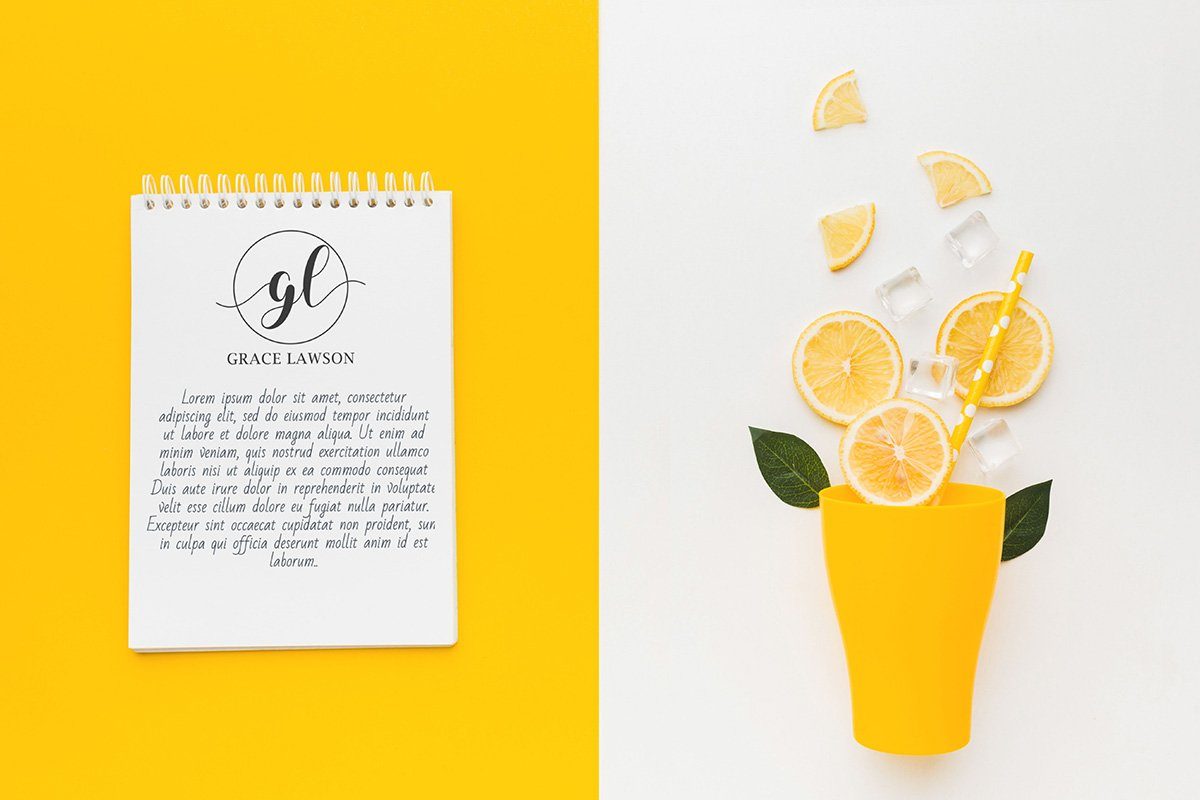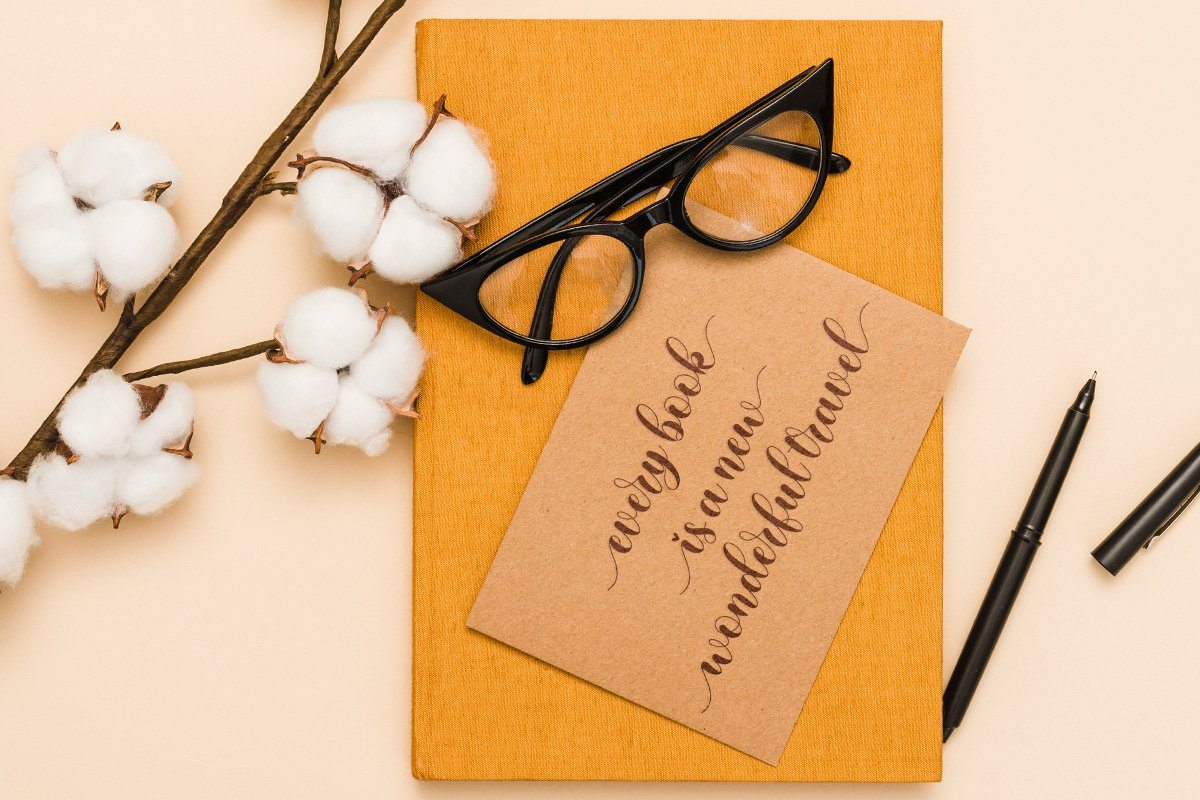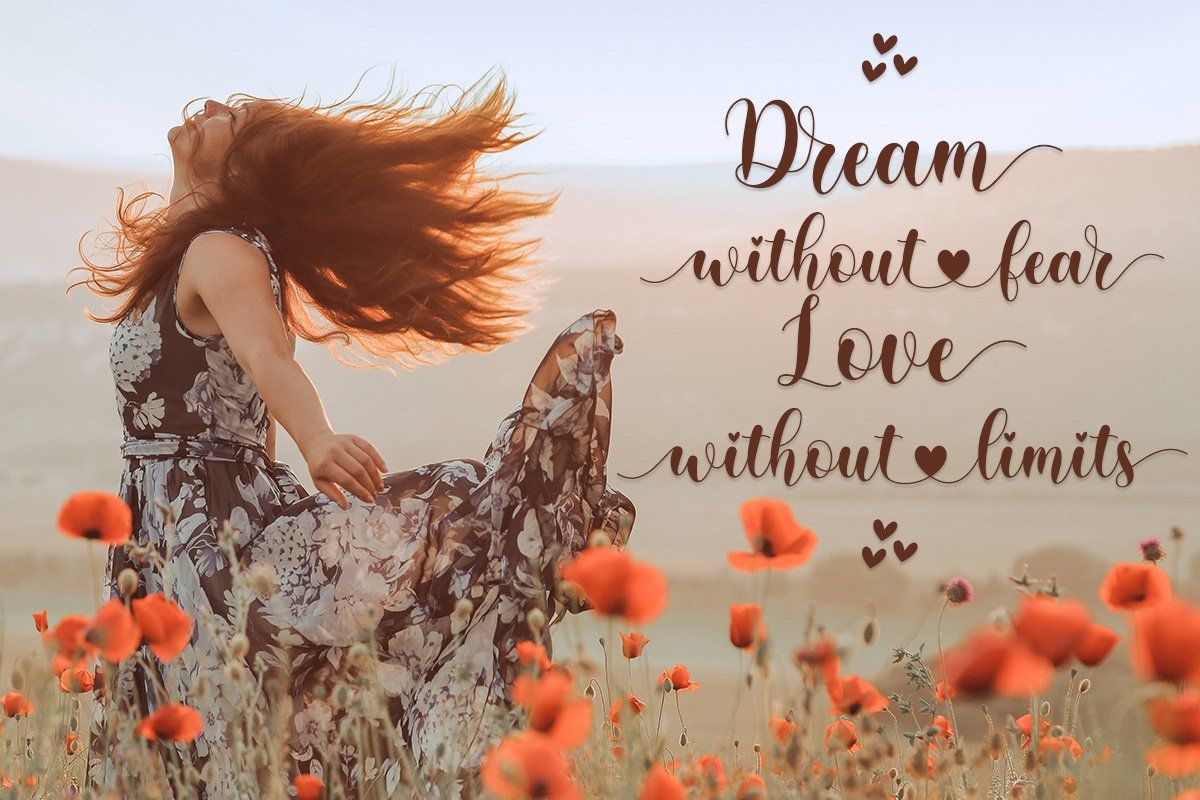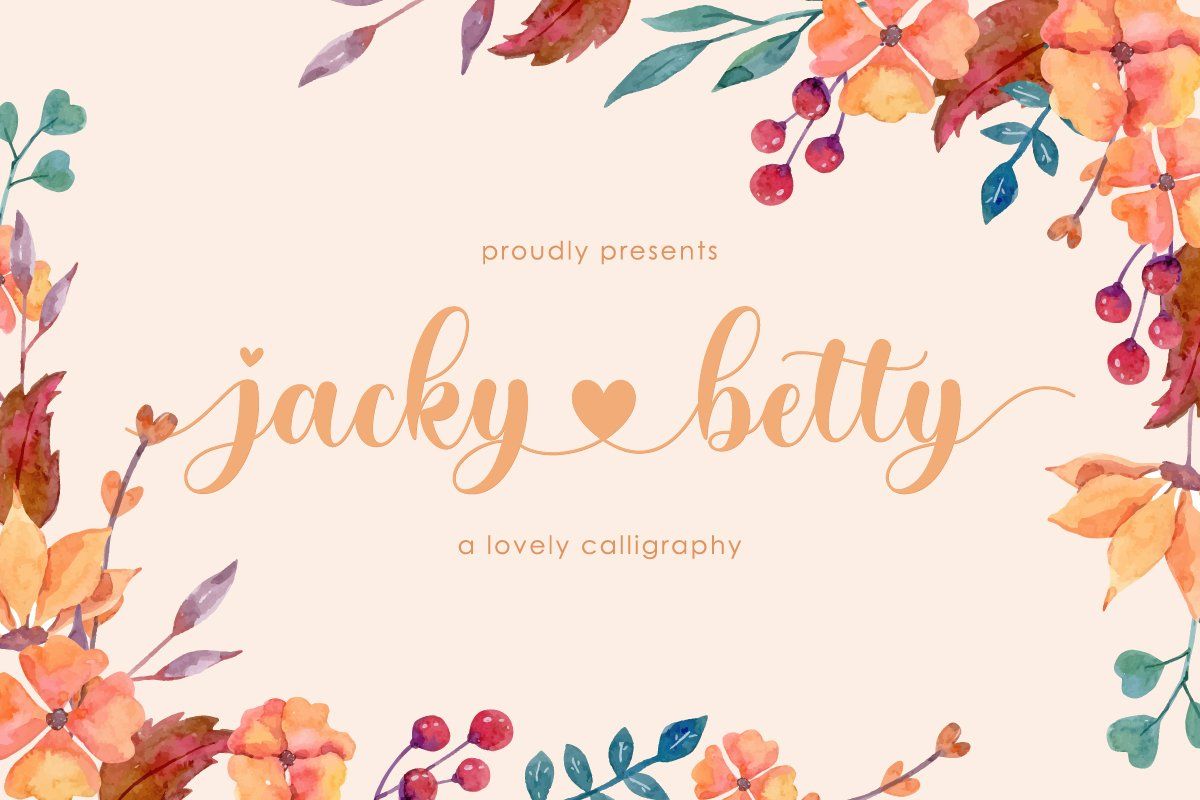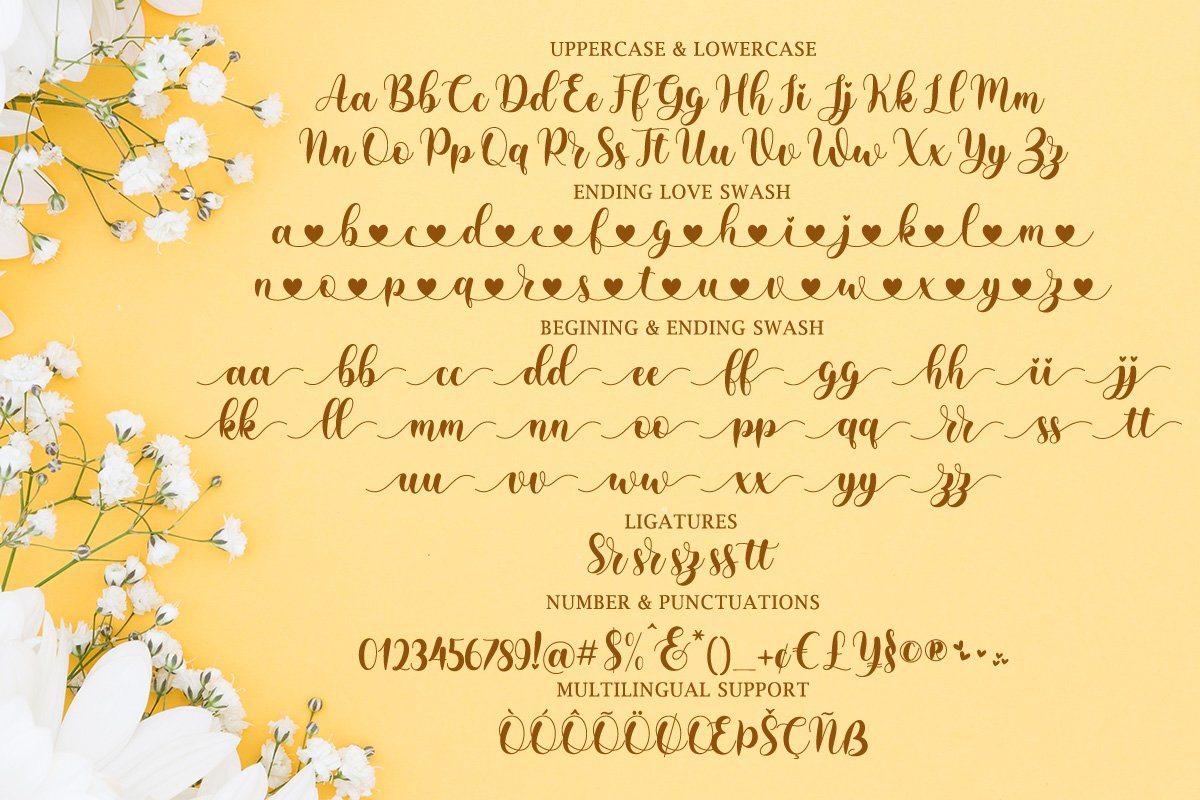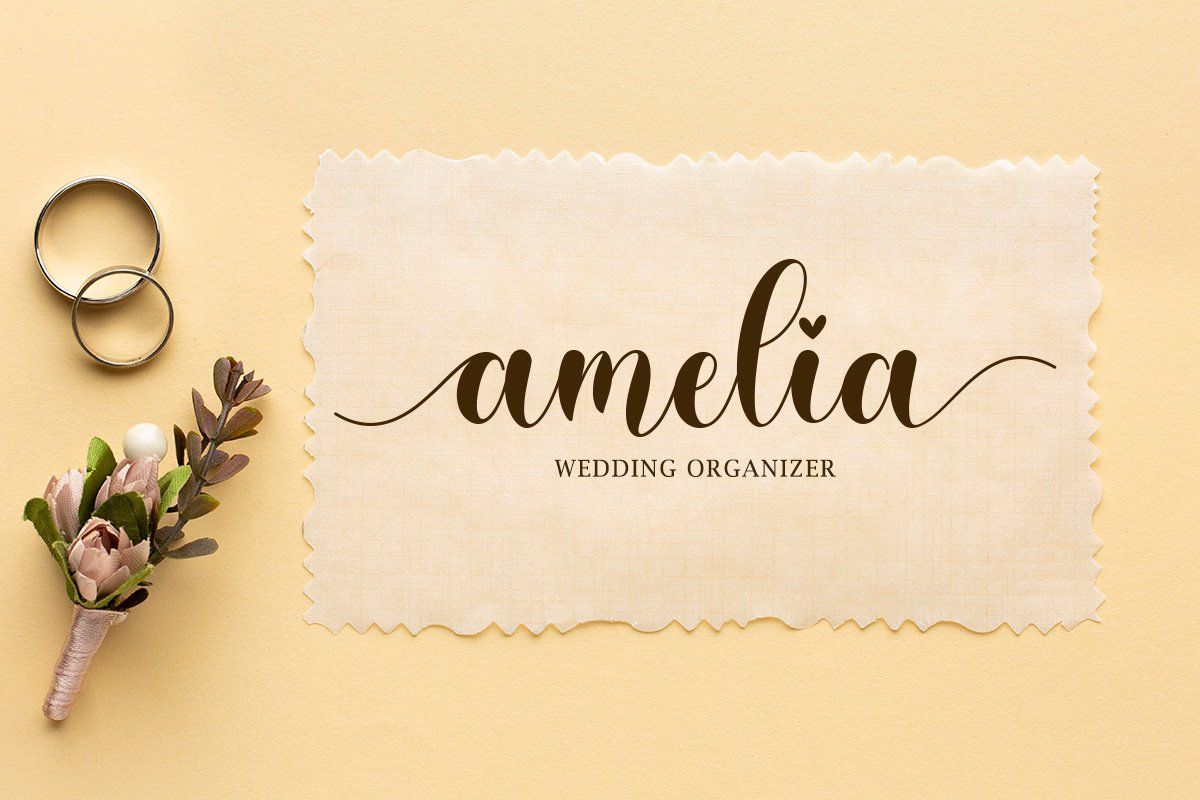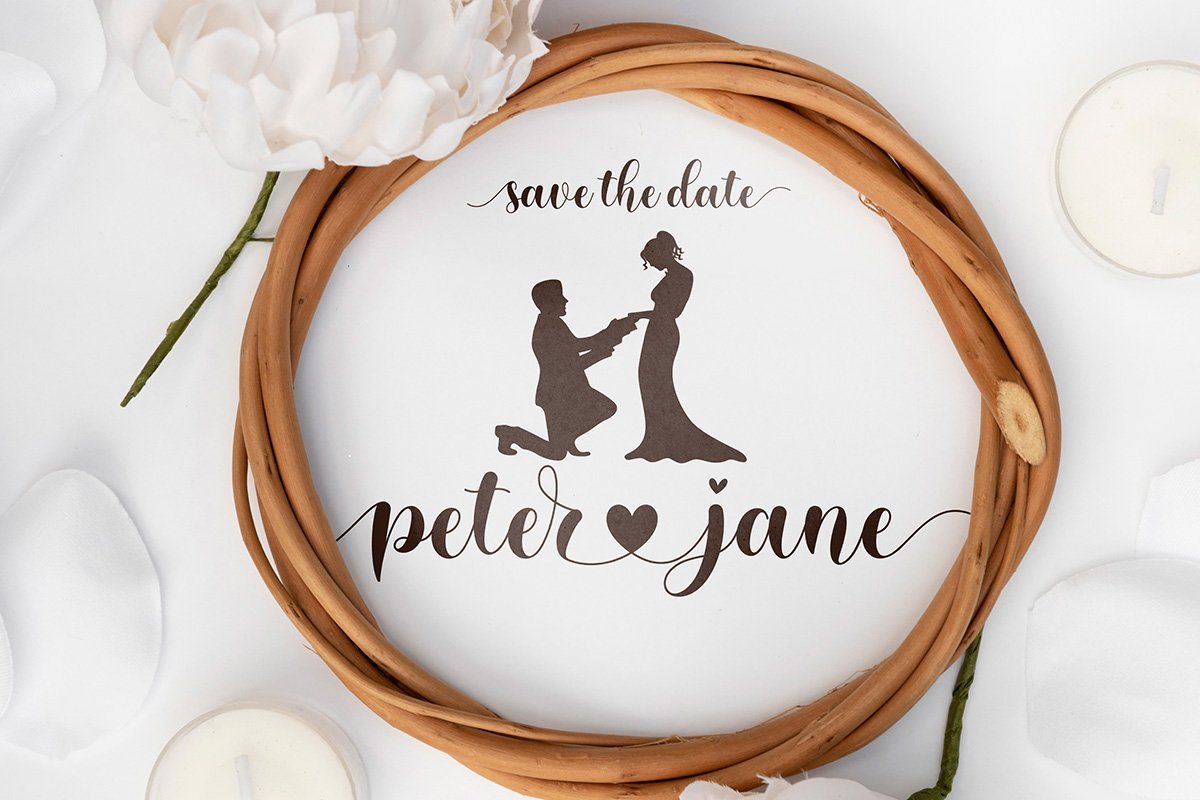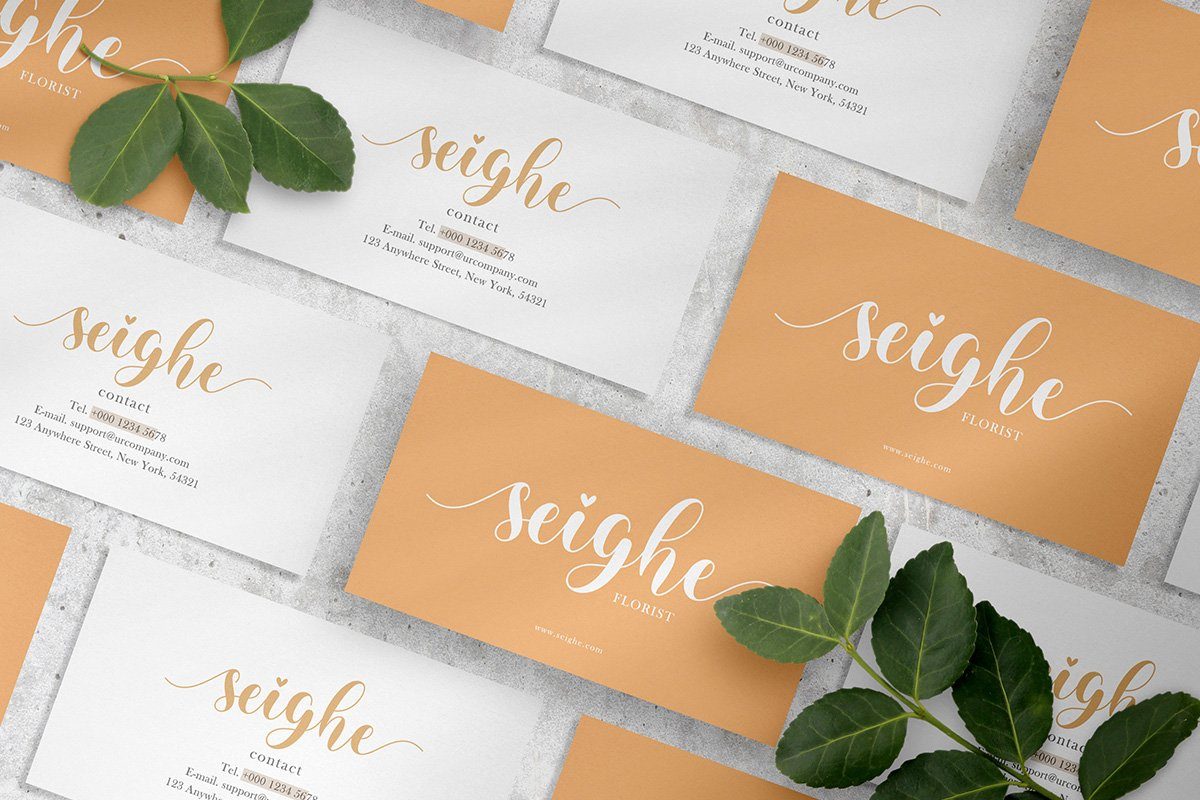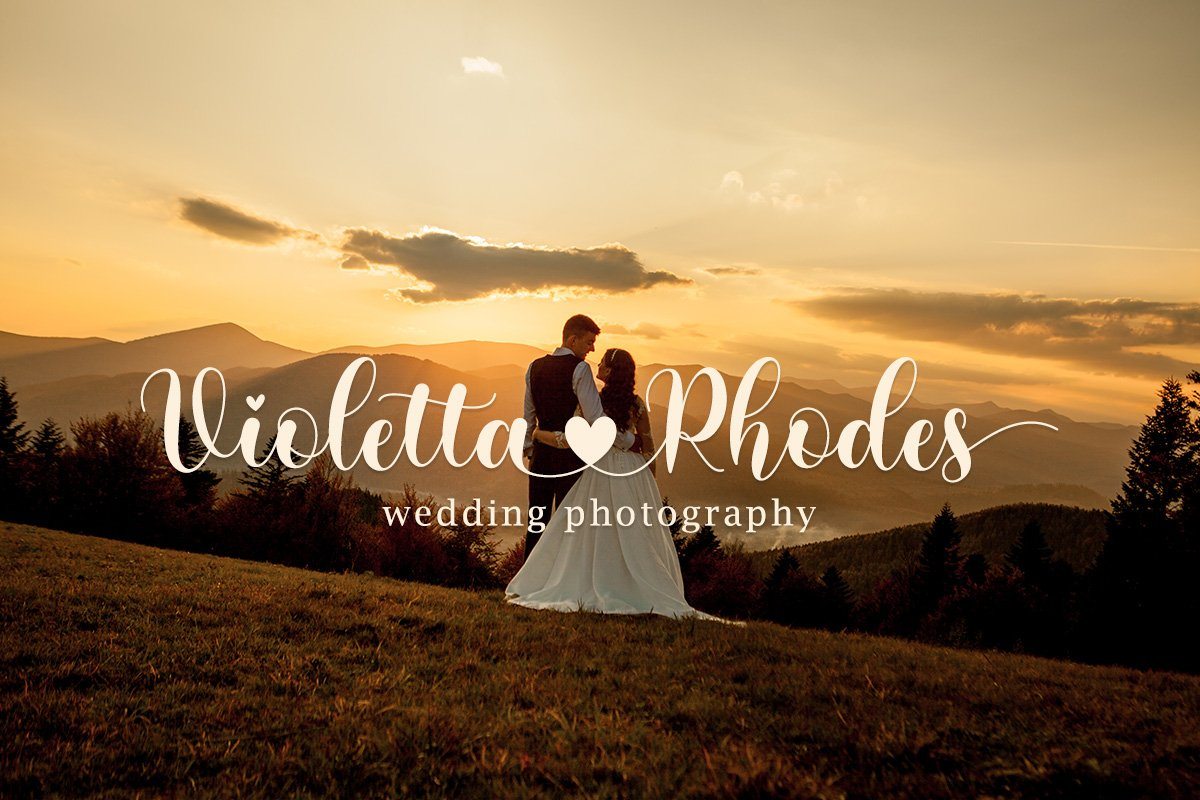
jacky betty | Lovely Calligraphy
jacky betty | Lovely Calligraphy Poster 1
About jacky betty | Lovely Calligraphy
jacky betty is a lovely script font with heart swash, this font looks natural, elegant and perfect for any extraordinary project. jacky betty is suitable for various products such as invitations, product packaging, quotes, product design, crafter, labels, photography, watermarks, logos, brandingand other romantic projects..Everything can be accessed using software that supports Opentype, such as Adobe Indesign, Adobe CS Illustrator, Adobe Photoshop CC, and Corel Draw. You will get: jacky betty  Script OTF, TTF, WOFF jacky betty  Swash OTF, TTF, WOFF jacky betty  Connect love OTF, TTF, WOFF Thank you 🙂